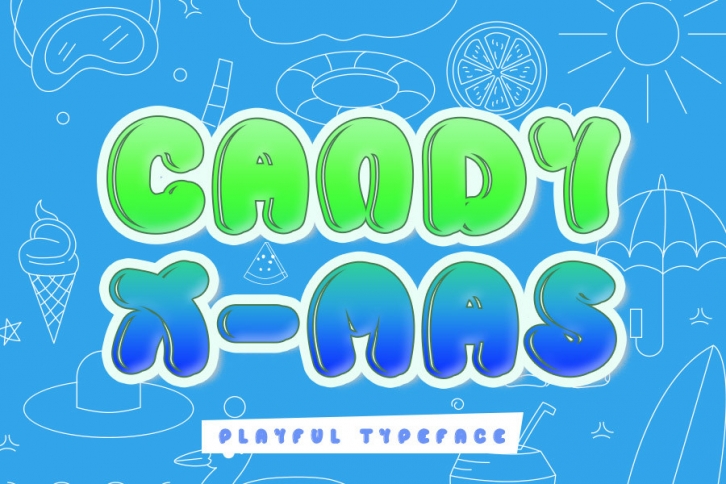
Candy X-mas is a bold, playful and bubbly display font. Whether you use it for cartoon related designs, children games or just any creation that requires a lovely touch, this font will be an amazing choice.